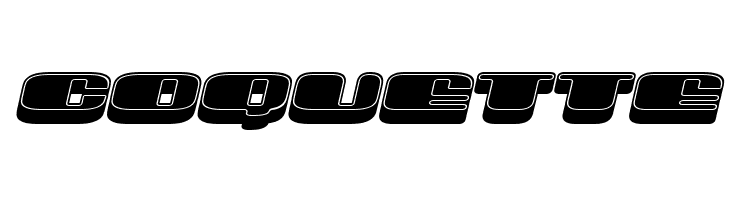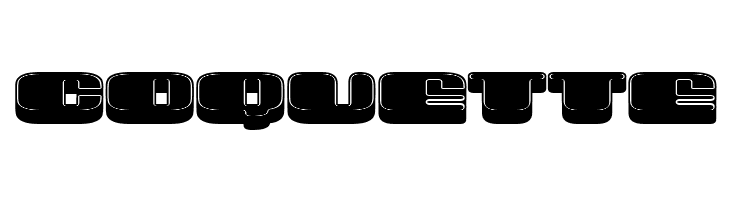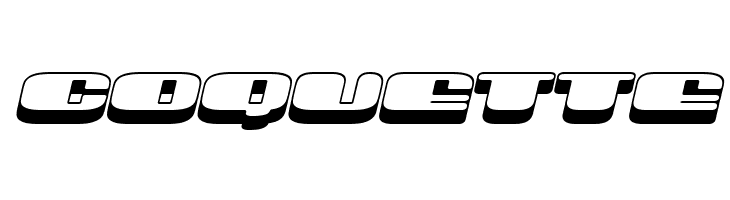
A bold, italic font with a filled, rounded style and modern appeal.
A bold, rounded font with filled interiors and distinct outlines.
Bold, rounded font with a 3D effect and italic slant.